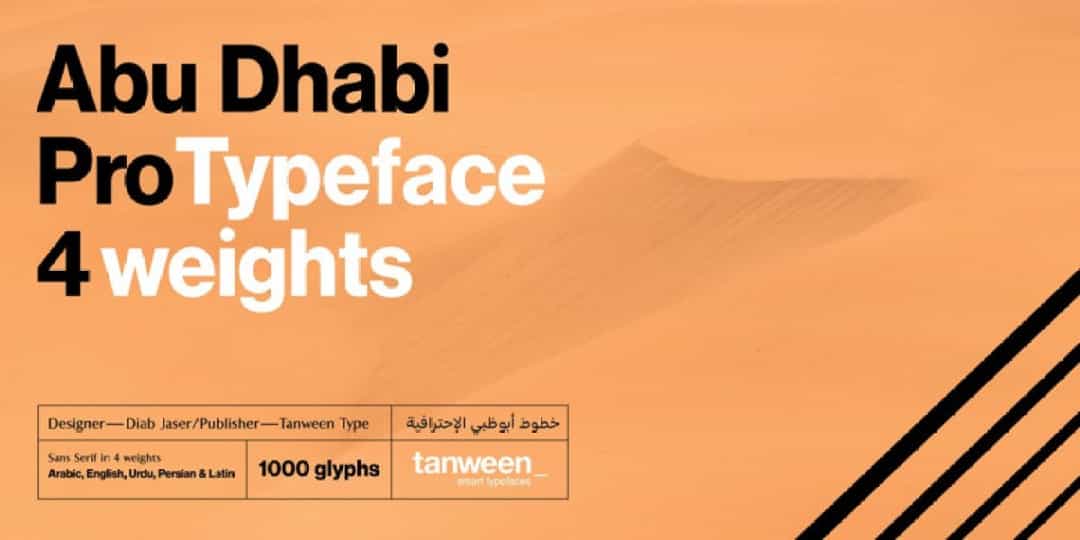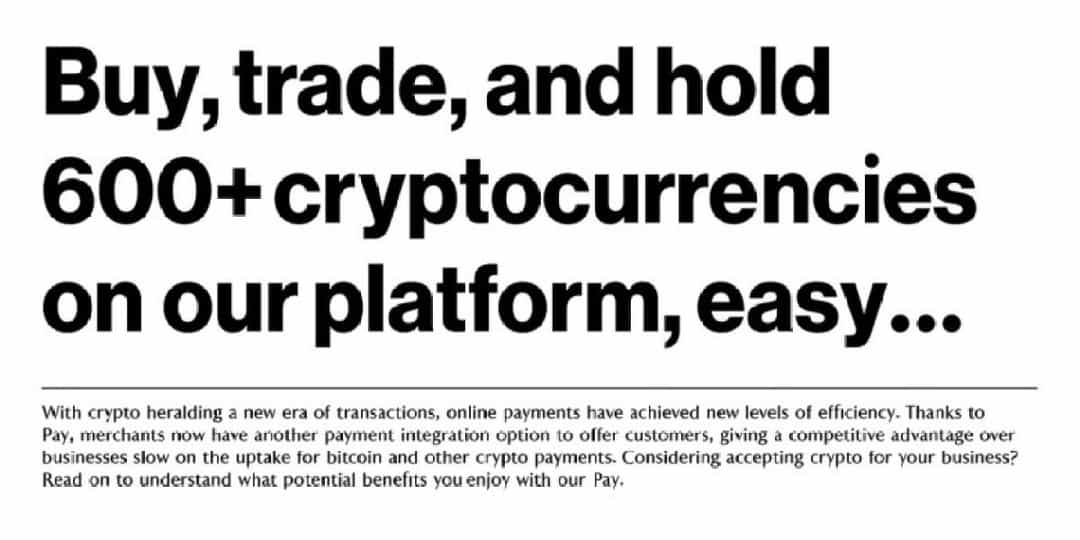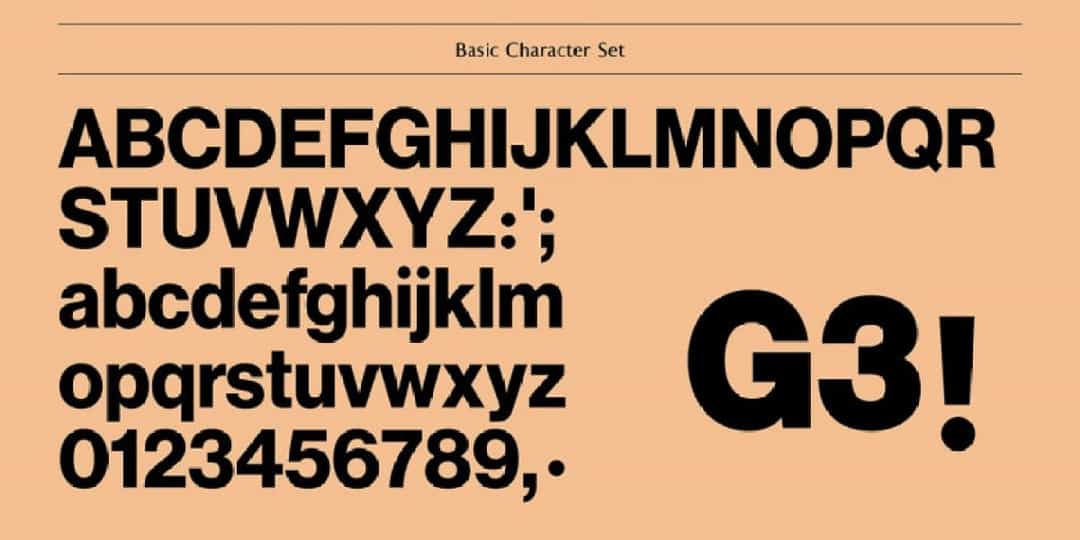
Abu Dhabi Pro is an elegant geometric sans serif font inspired by Abu Dhabi, the capital. This font is known for its tranquil, warm feel while featuring sharp edges. That is, perfect horizontal edges meet vertical cuts at 90 degrees while offering four incredible weight options that form part of an impressive Tanween collection! Reinterpreting Arabic letters without altering their form directly is the hallmark style from Abu Dhabi Pro!.